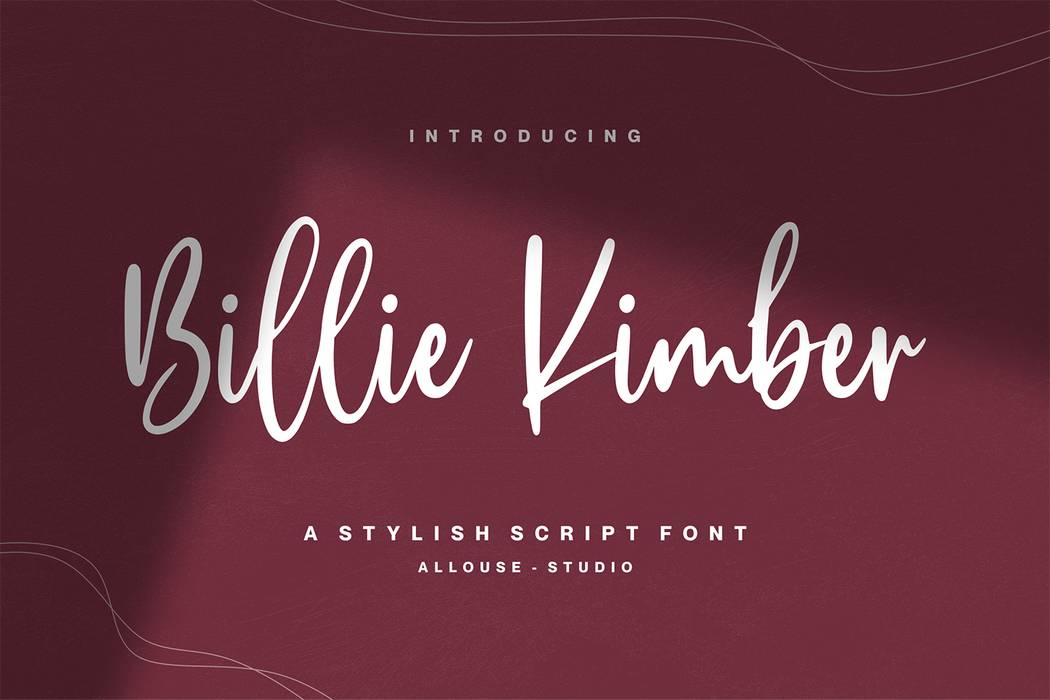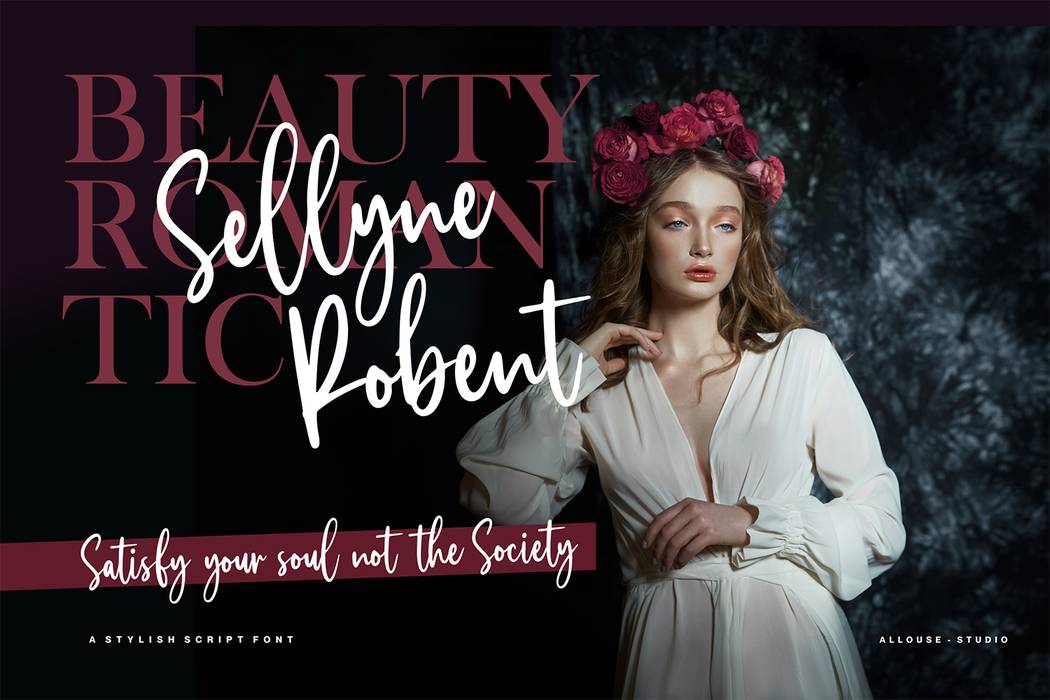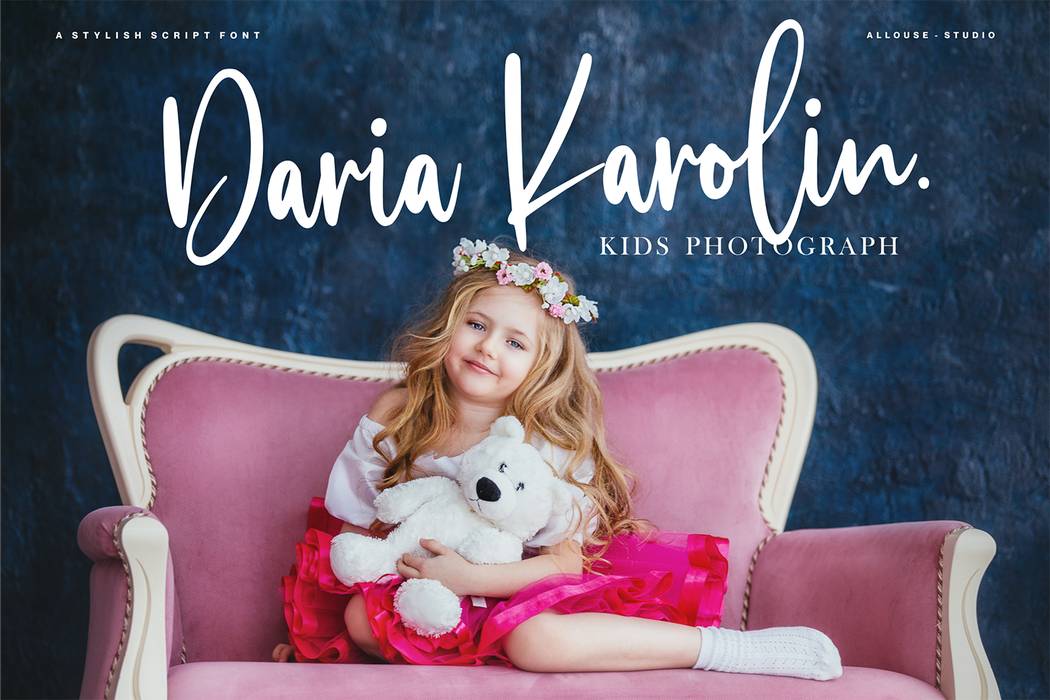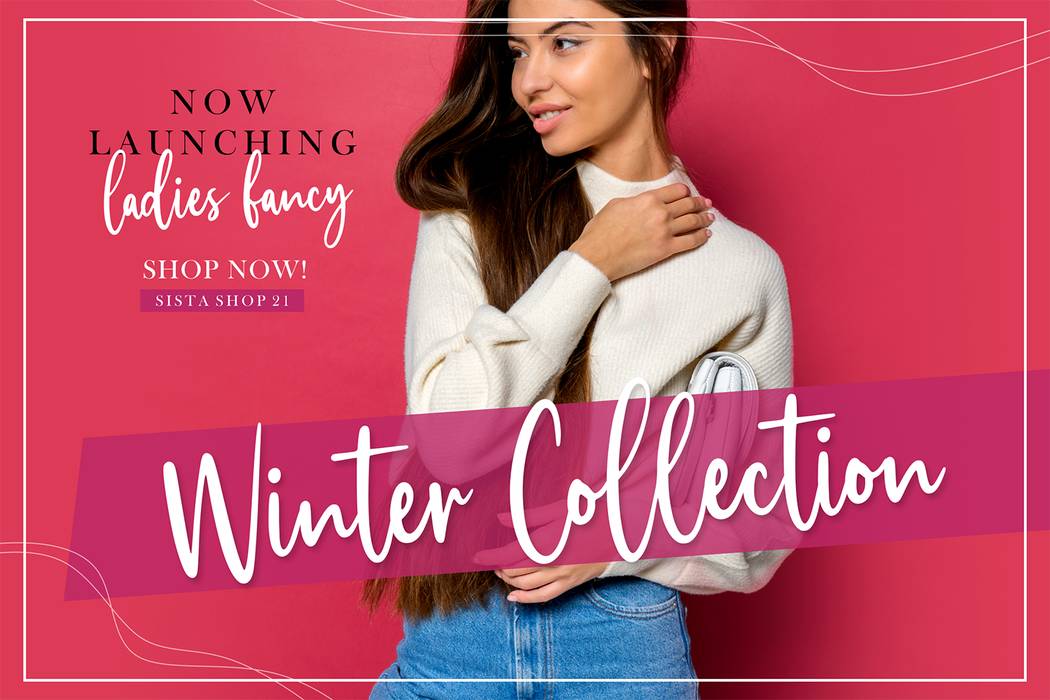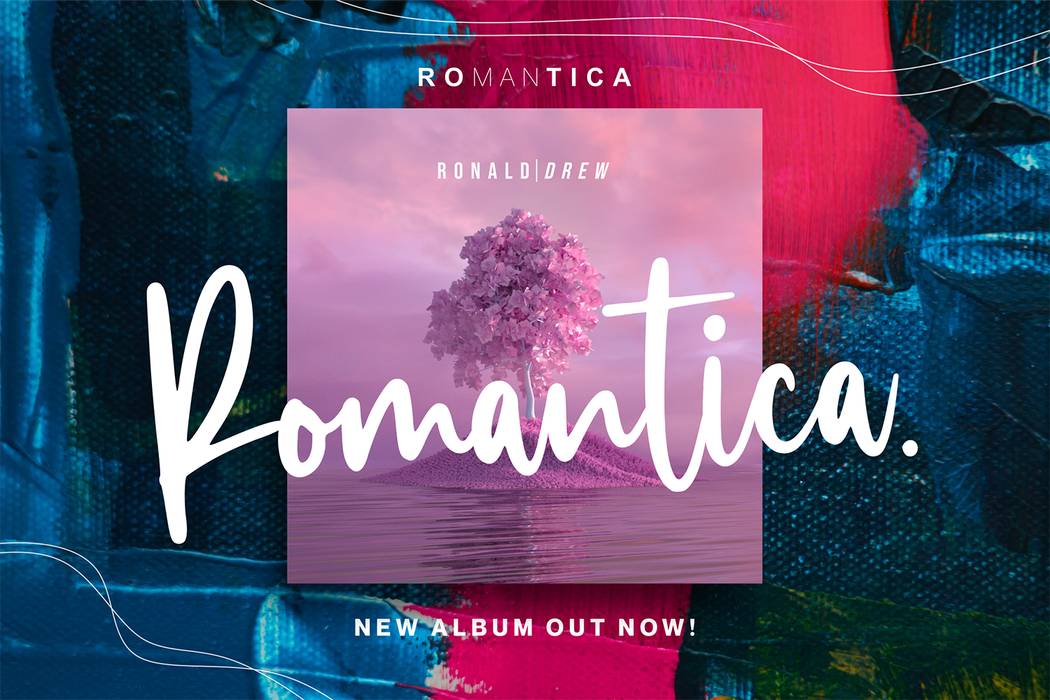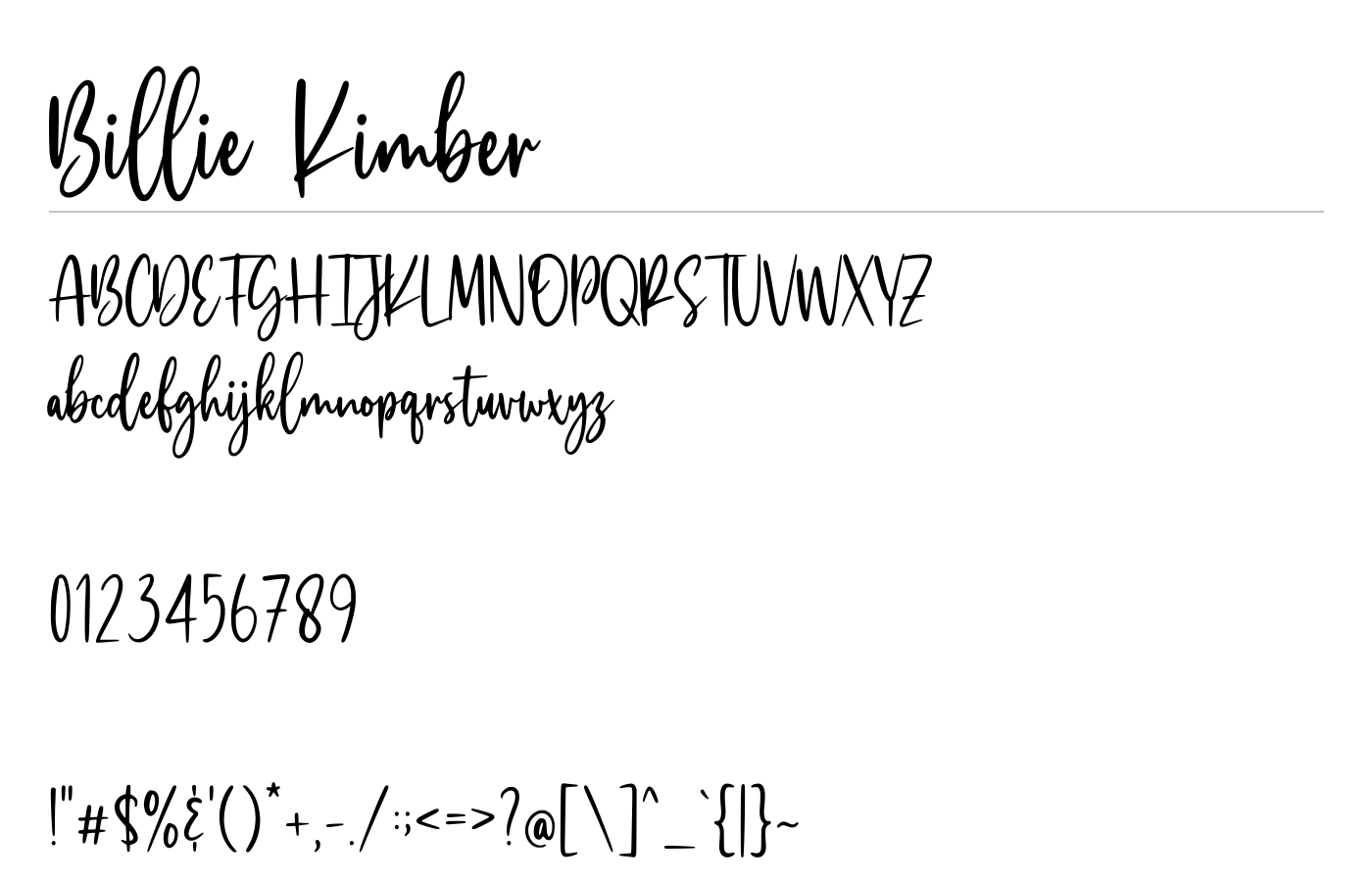
Billie Kimber is a playful and elegant handwritten script font with a natural, flowing style. Its tall, slim letterforms and smooth, casual strokes make it feel friendly and approachable, perfect for creative branding, invitations, and personal projects where a warm, personal touch is desired. This font works well for headlines and logos that need a charming, informal vibe without sacrificing legibility.
Billie Kimber Font
About Billie Kimber Font